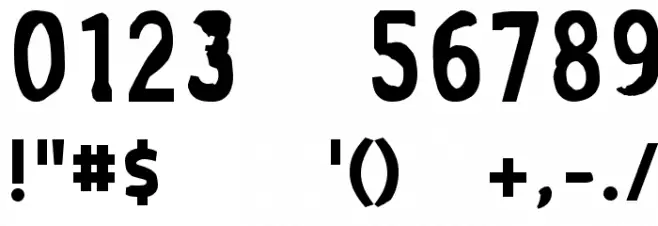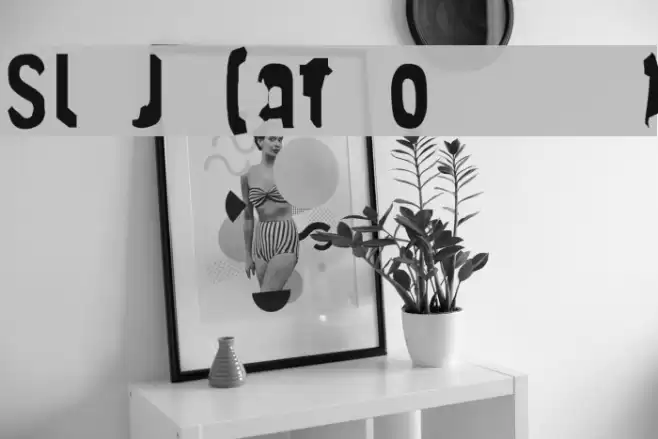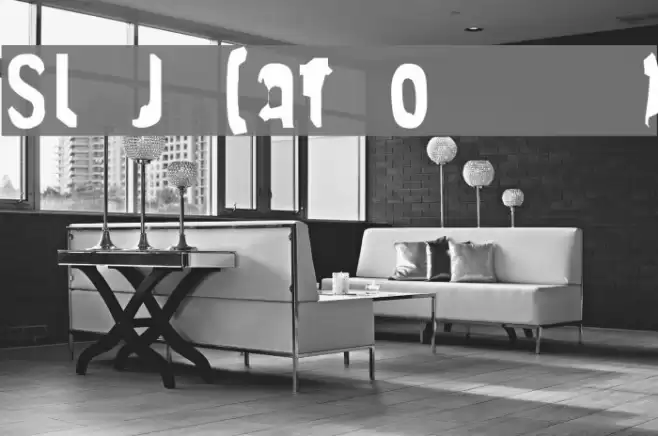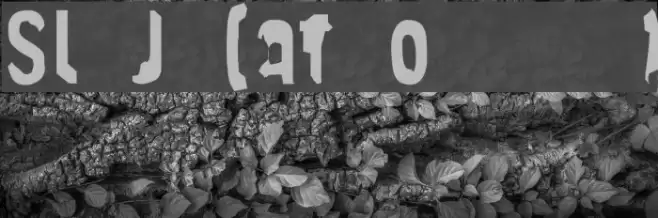
Slim Jim [part one] Font
Slim Jim [part one] Description
This font features a bold and striking design with a distressed, grunge aesthetic. The characters are heavily stylized, with irregular edges and a rough texture that gives them a unique, worn appearance. The uppercase letters are tall and narrow, while the lowercase letters maintain a consistent style with some variations in width. Numbers and special characters follow the same rugged theme, making the font suitable for projects that require a bold, eye-catching look. The overall style is reminiscent of vintage or industrial design, perfect for creating a strong visual impact.
A bold, distressed font with a grunge aesthetic and irregular edges from Uncategorized fonts.
- Proposed Projects: Ideal for posters, album covers, branding for edgy or alternative products, and any design needing a vintage or industrial feel.
- Overall Style: Vintage